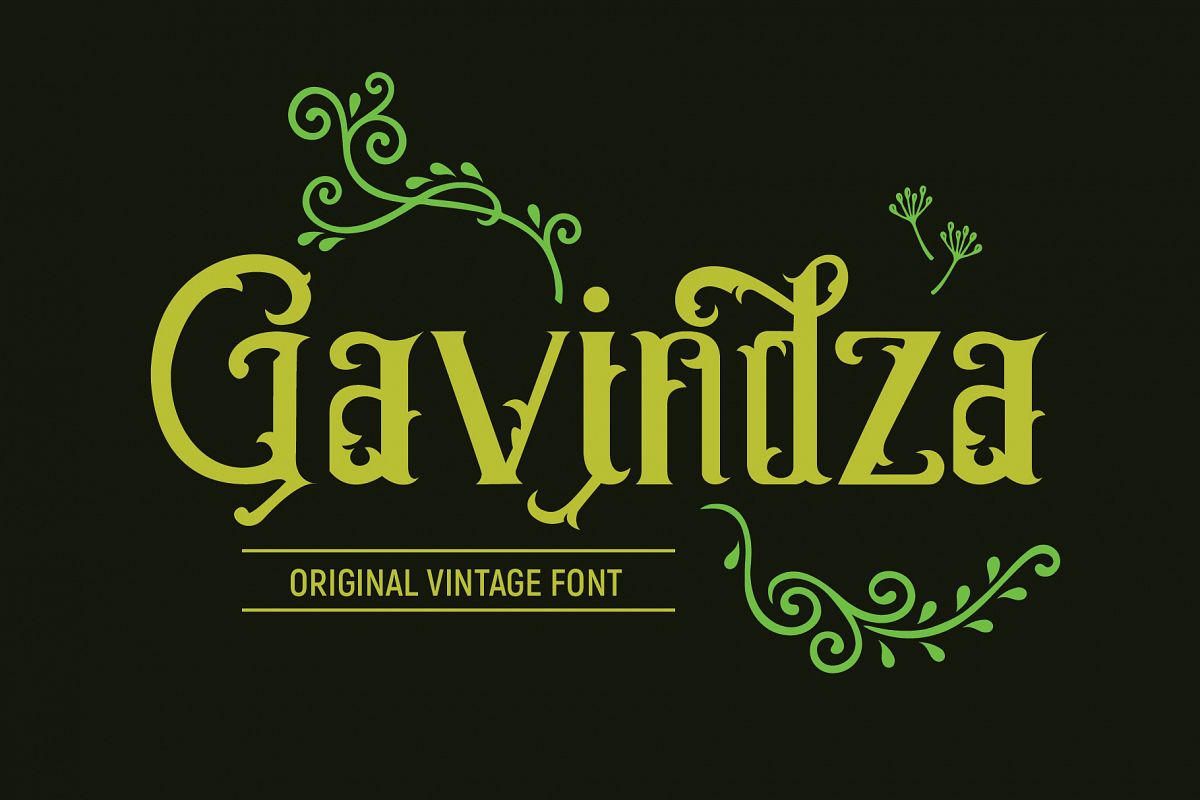
Gavindza
by Gumacreative
Hello there, here is Gavindza font, it's perfect for you to give your design a vintage touch. This is an original hand writing font, perfect for give your design an authentic touch.